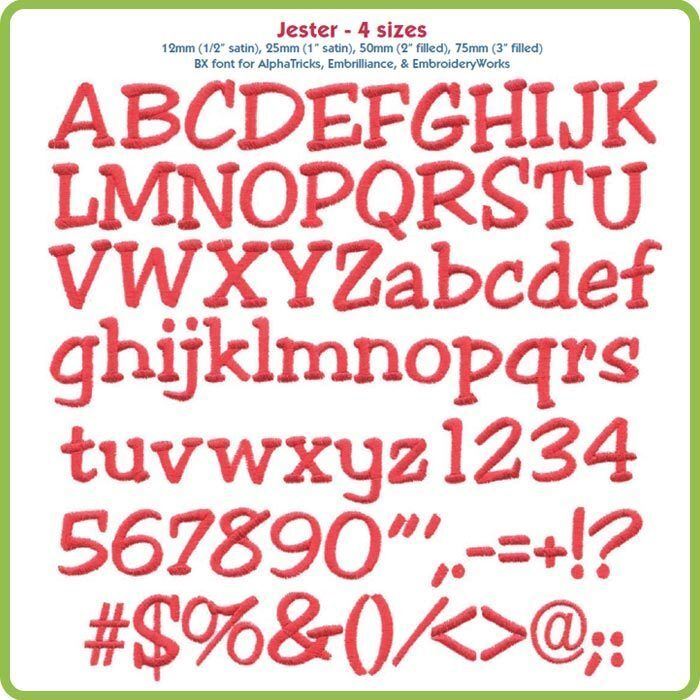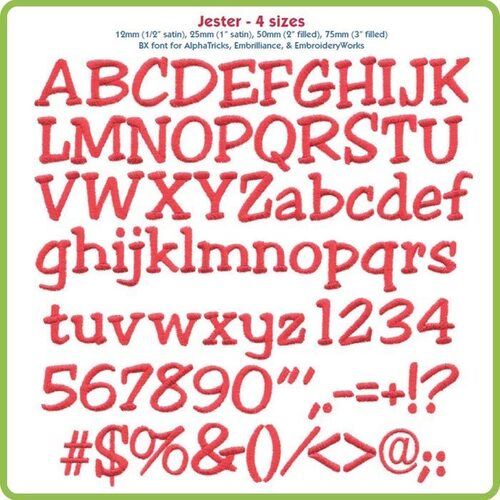
Collection Notes: Jester is a casual serif machine embroidery font that includes A-Z, a-z, 0-9 and the following punctuation: !@#$%&()-+=:;"'<>,.?/ (83 total characters). This bundle includes the following sizes: 12mm (1/2") satin, 25mm (1") satin, 50mm (2") fill, 75mm (3") fill.